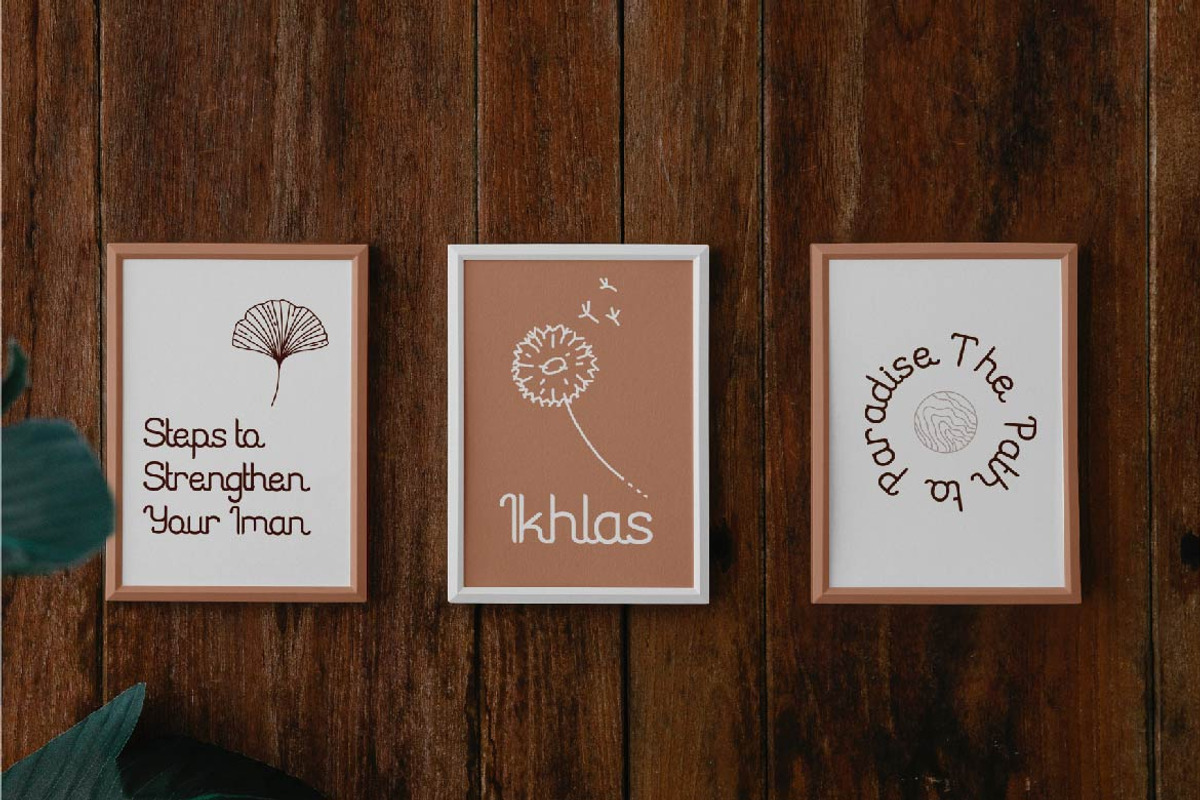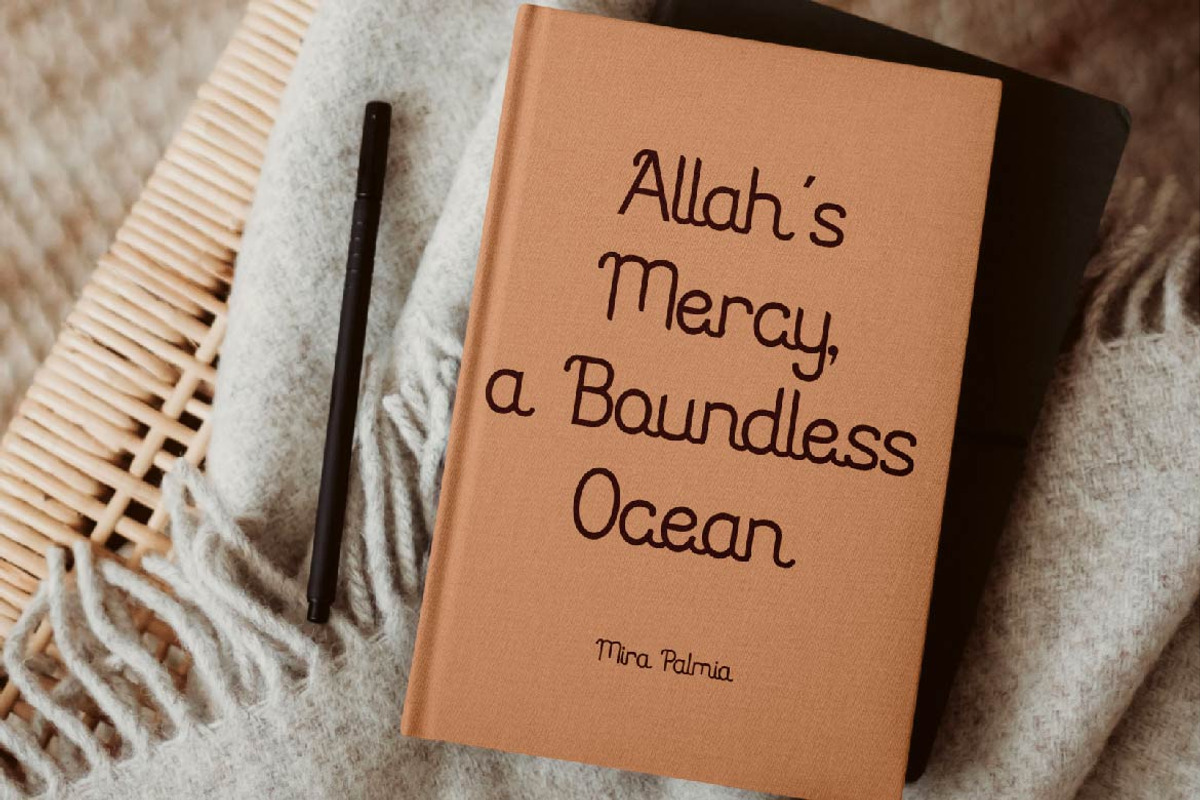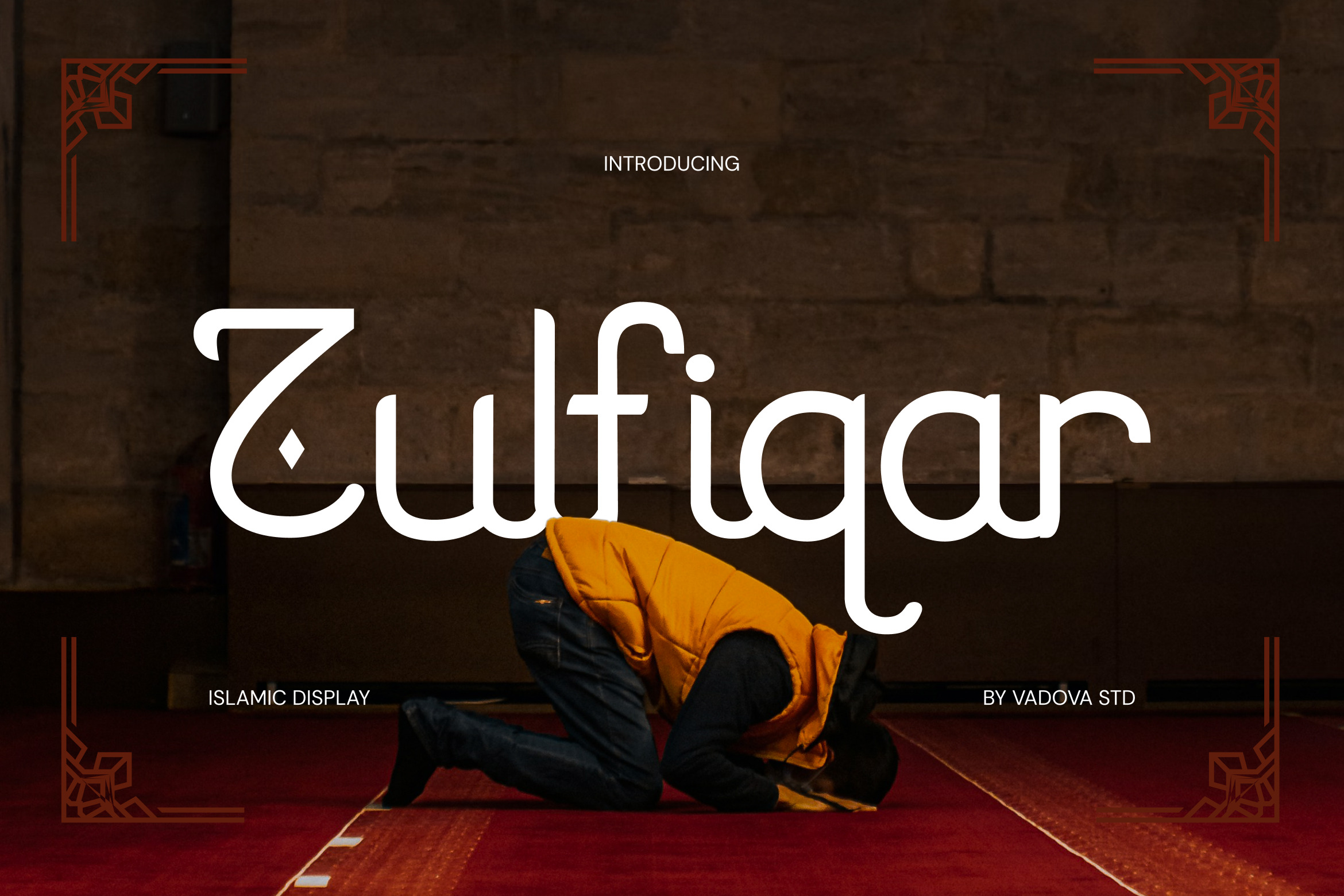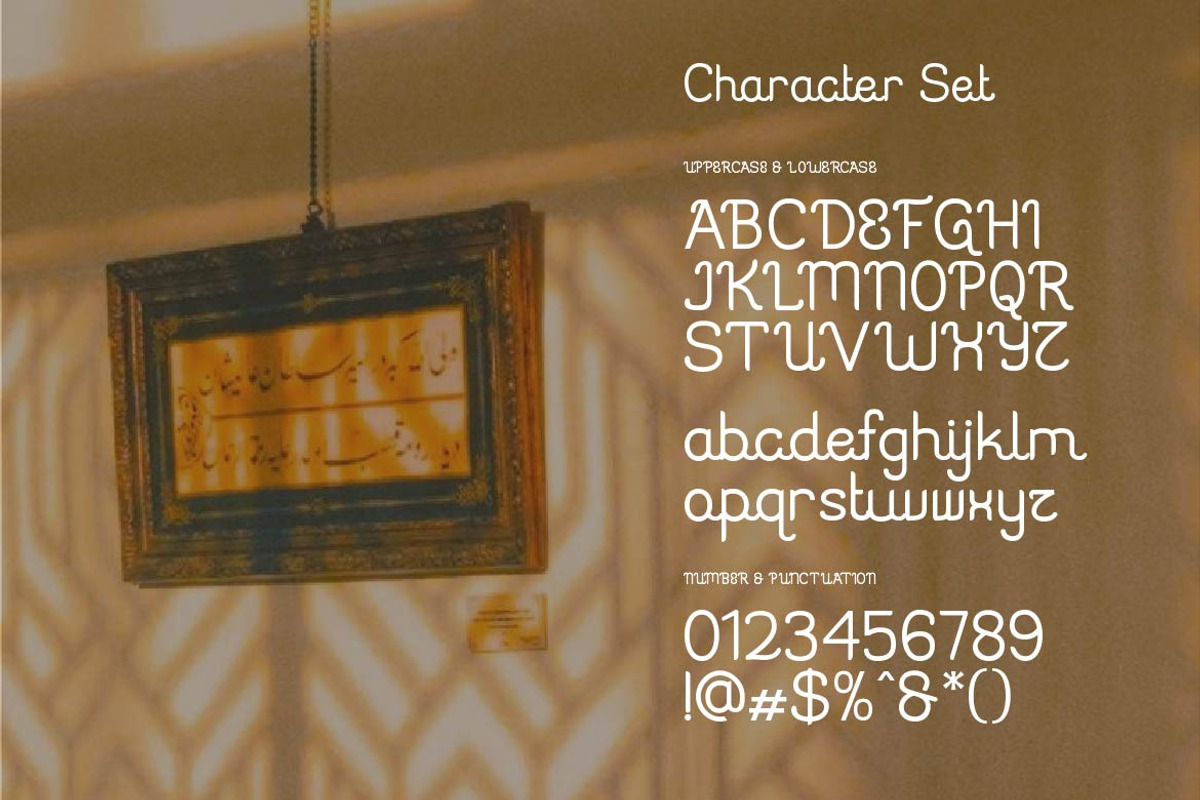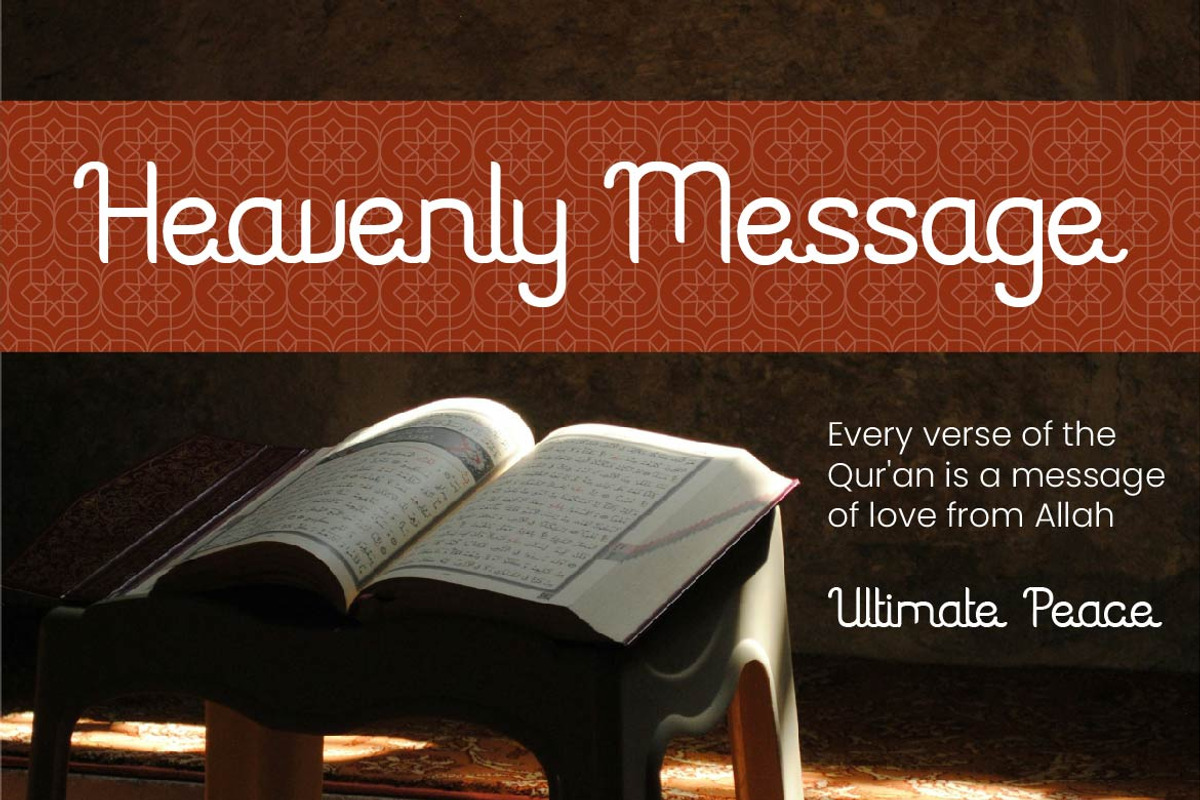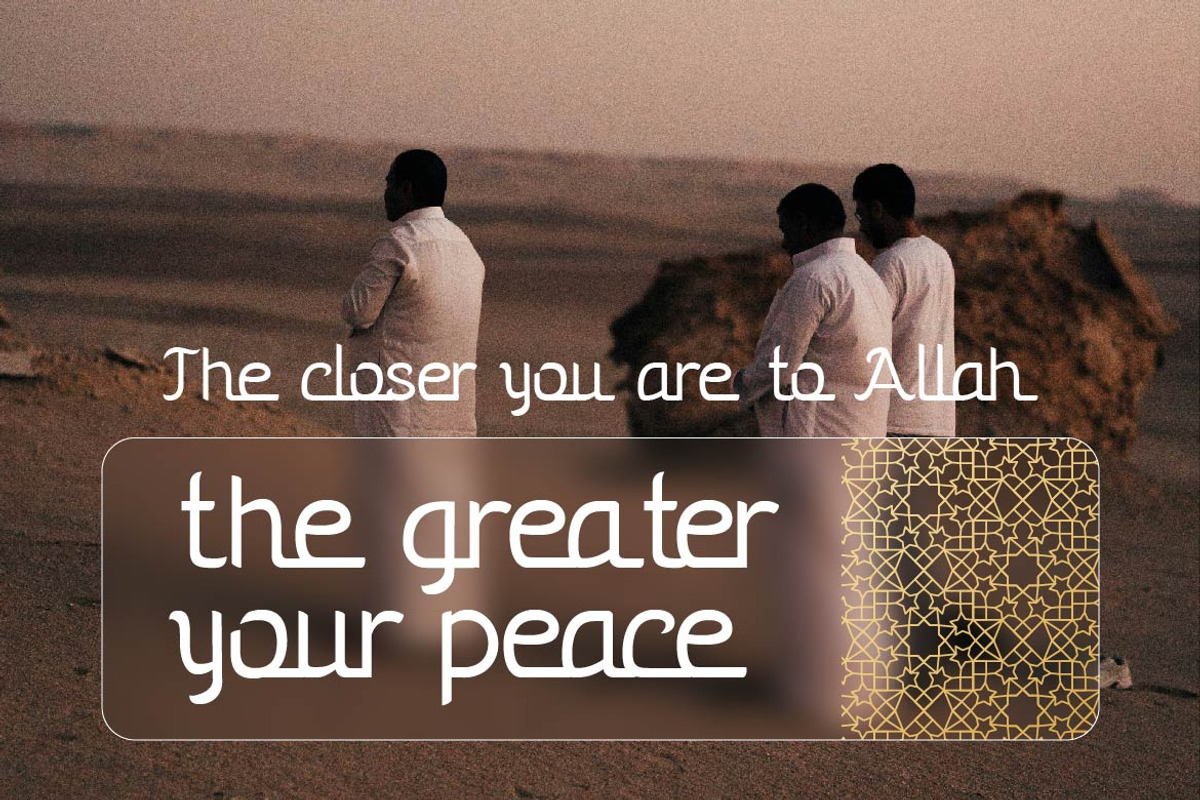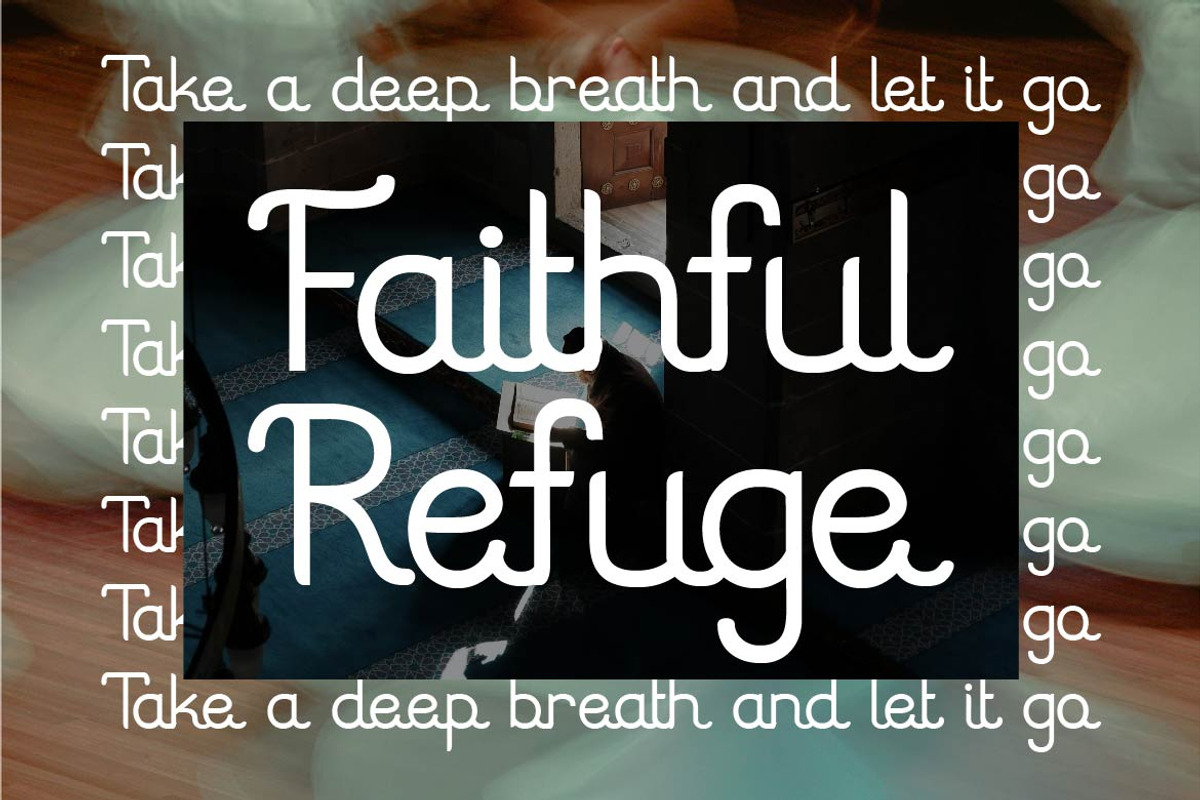
Zulfiqar – Islamic Display Font
Zulfiqar is a modern Islamic display font that merges bold contemporary design with traditional Arabic influences. Its distinctive letterforms feature smooth curves, ornamental touches, and geometric balance, making it a striking choice for projects that need to convey strength, faith, and elegance.
Crafted for both digital and print contexts, Zulfiqar delivers a unique cultural presence, ideal for religious events, editorial headlines, branding, and spiritual campaigns that seek a modern yet authentic aesthetic.
Font Highlights
Uppercase & lowercase letters
Numerals and punctuation
Modern display typeface with Arabic and Islamic inspiration
Why Designers Choose Zulfiqar
Cultural Power – Evokes spiritual depth with strong Arabic-influenced shapes.
Modern Elegance – Perfect balance of tradition and contemporary display style.
Unique Letterforms – Stand out with ornamental details and clean geometry.
Versatile Usage – Works beautifully in posters, branding, events, and editorial layouts.
Best Applications
Islamic and cultural branding projects
Religious event posters and invitations
Editorial titles and magazine layouts
Product packaging with Arabic themes
Logo design and signage
Social media and advertising campaigns
Make a bold spiritual statement with Zulfiqar — a font that blends heritage and modernity for impactful Islamic design.